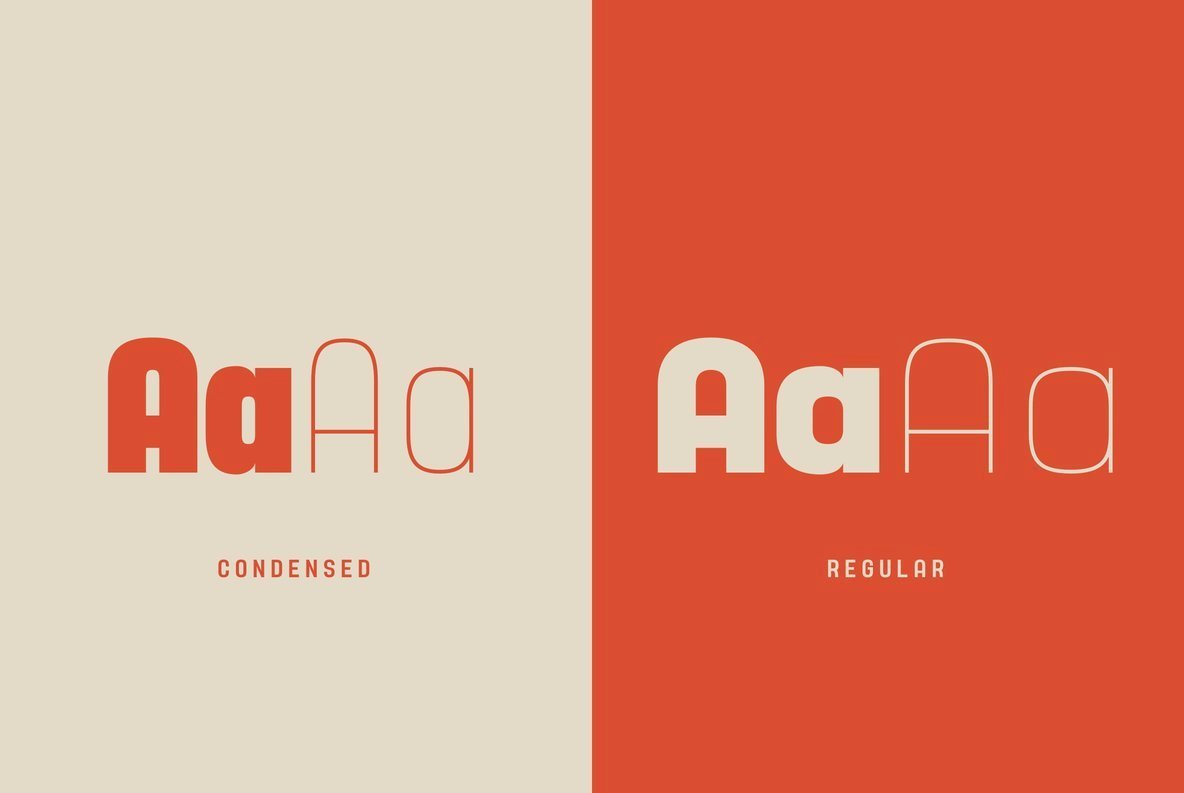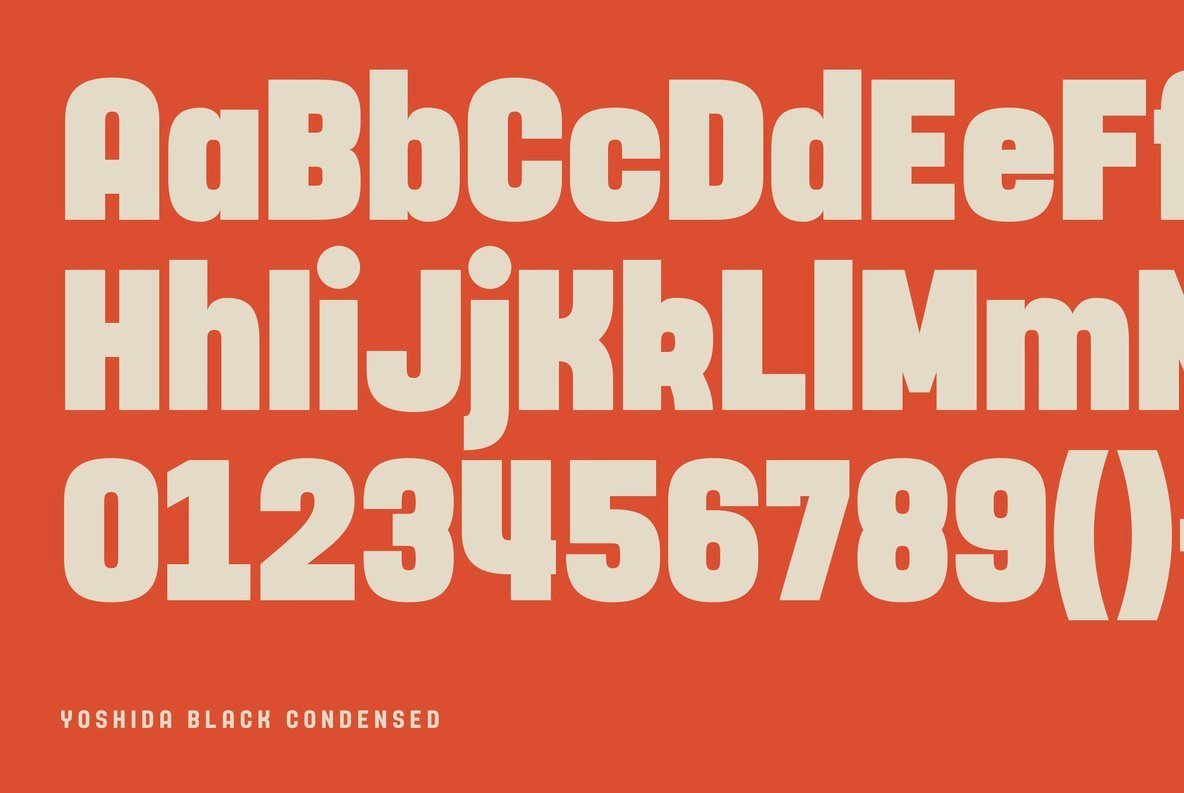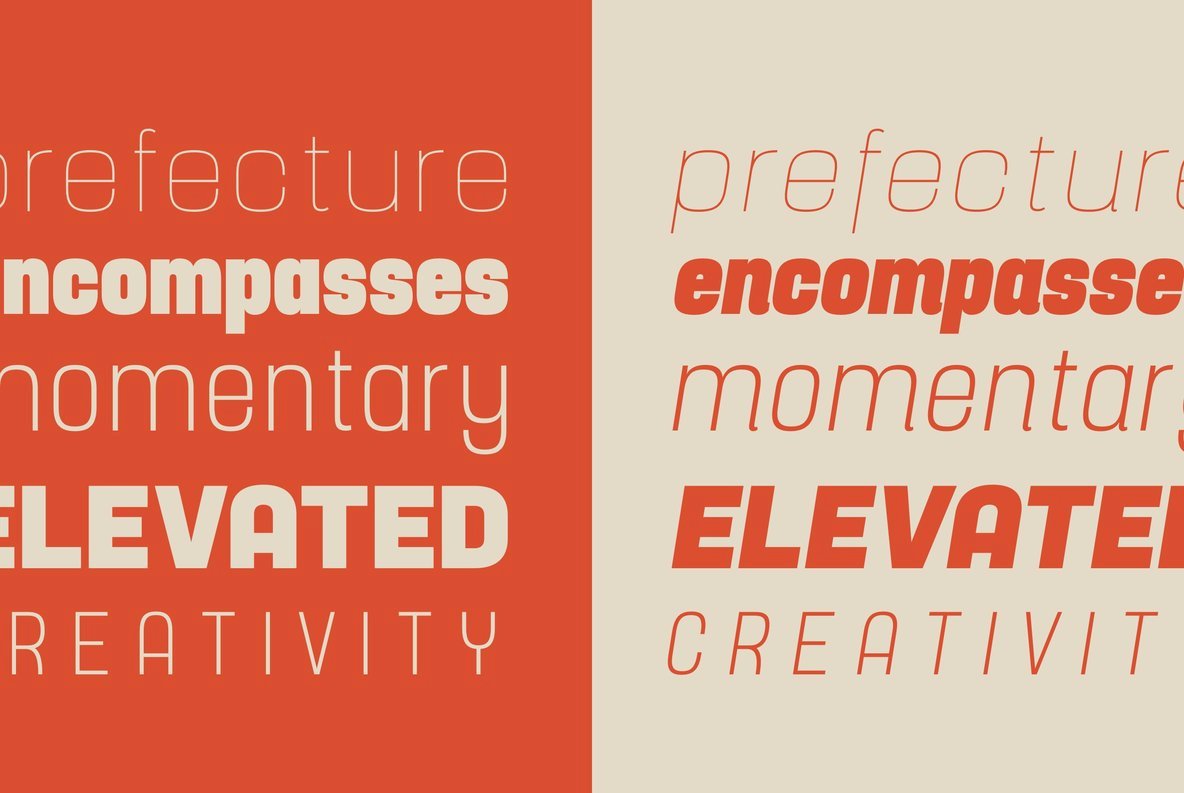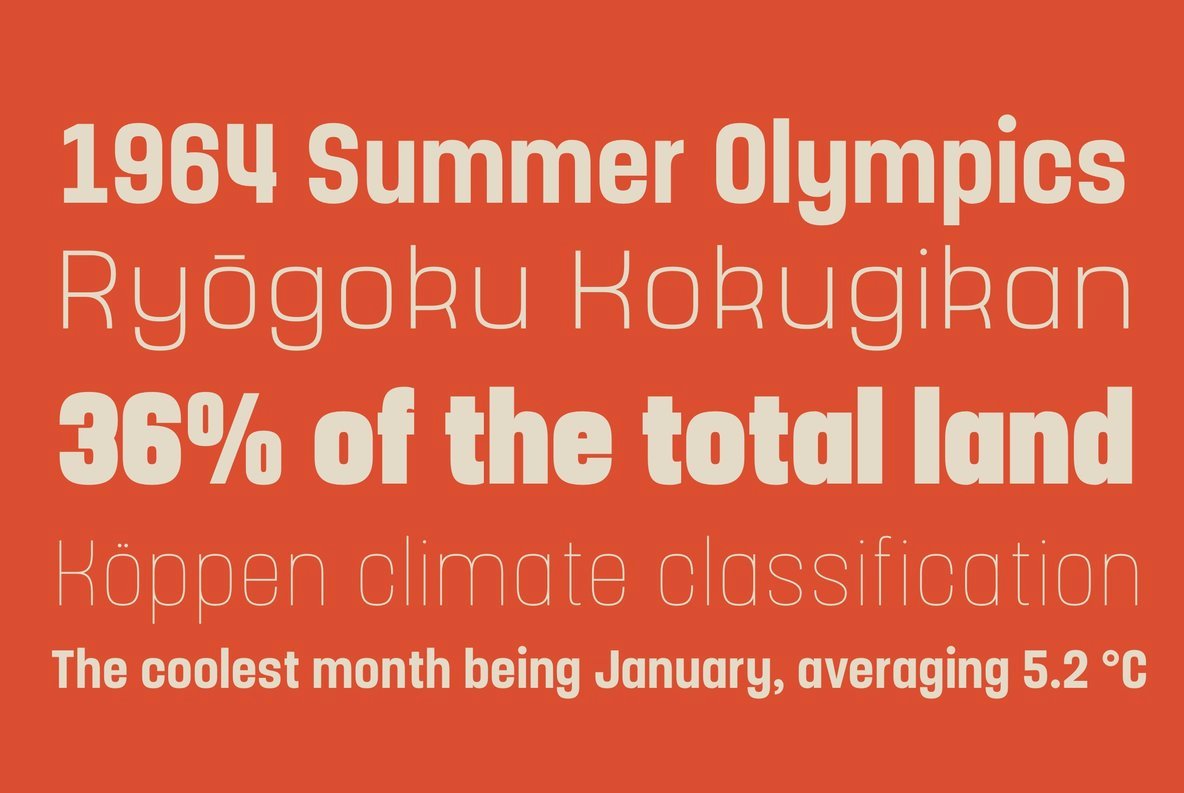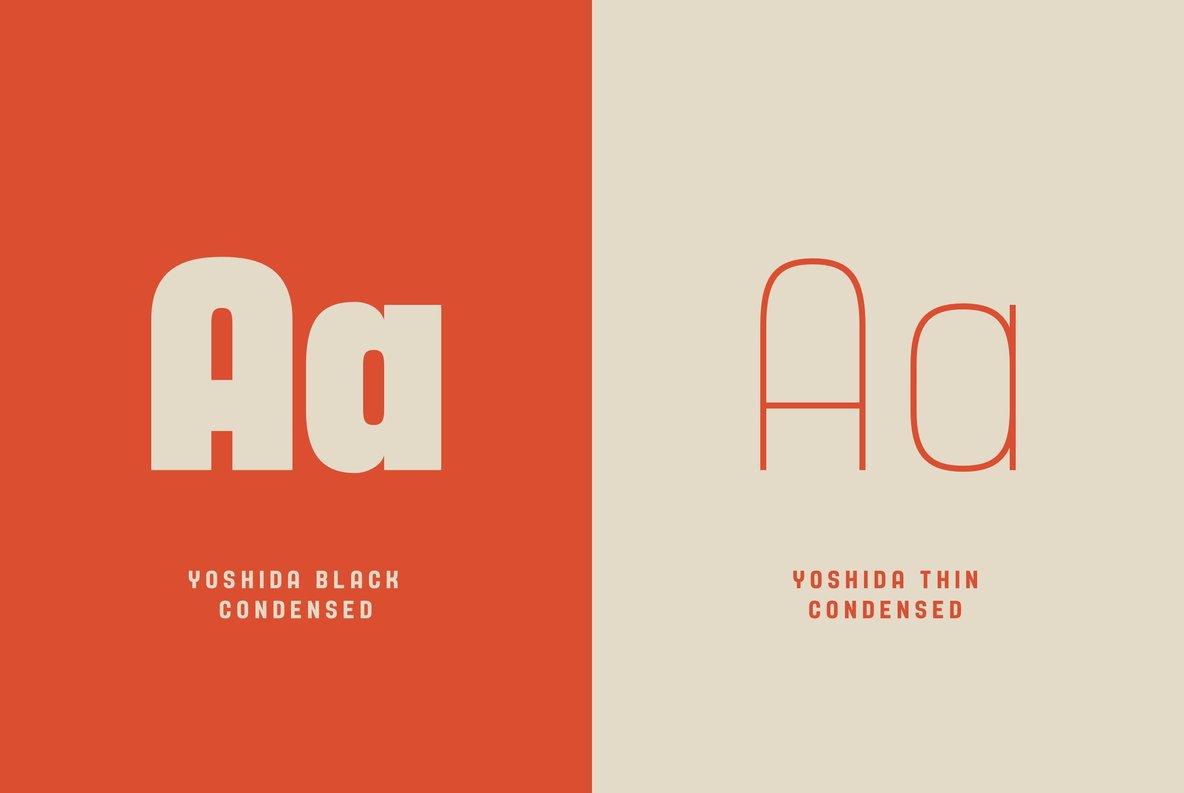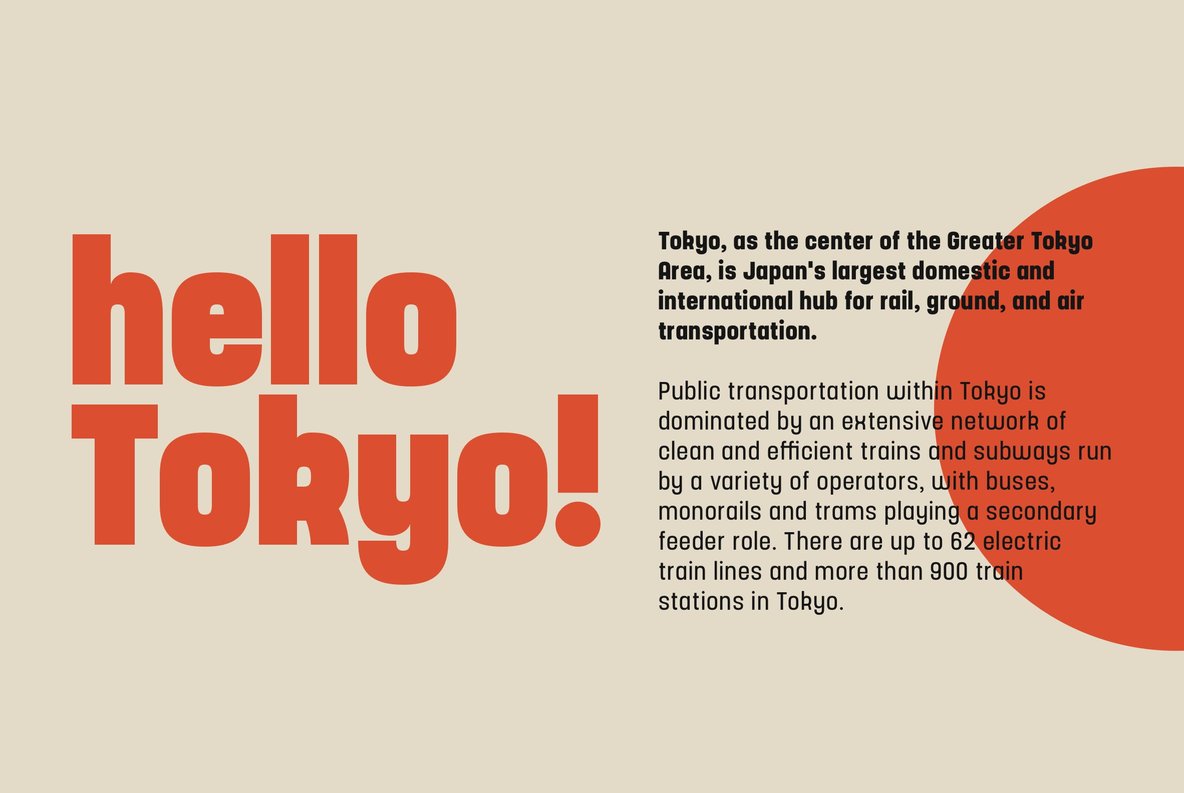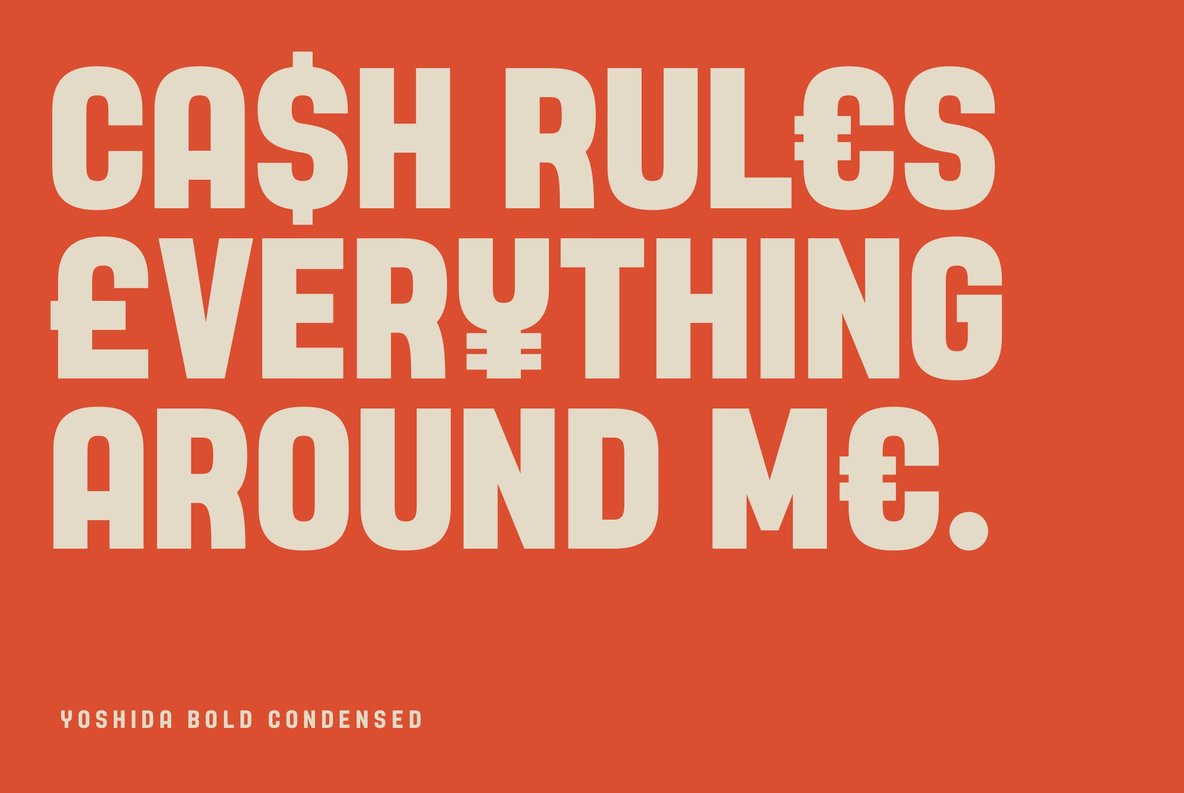
Yoshida Sans Font
Yoshida is a modern sans serif made up of 2 widths, 8 weights and their matching italics offering an array of uses and applications with it’s 32 styles. The weights range from a delicate Thin, to a punchy Black that is perfect for branding or headlines.
The curvaceous characters create a fun, fluid feel whilst keeping a modern, balanced look and structure. The font has extensive language support making it perfect for large corporations or small start ups. Yoshida also has several ligatures to enhance it’s visual appeal.
Yoshida is a versatile font suitable for many applications such as web, print, branding and anything else that takes your fancy.